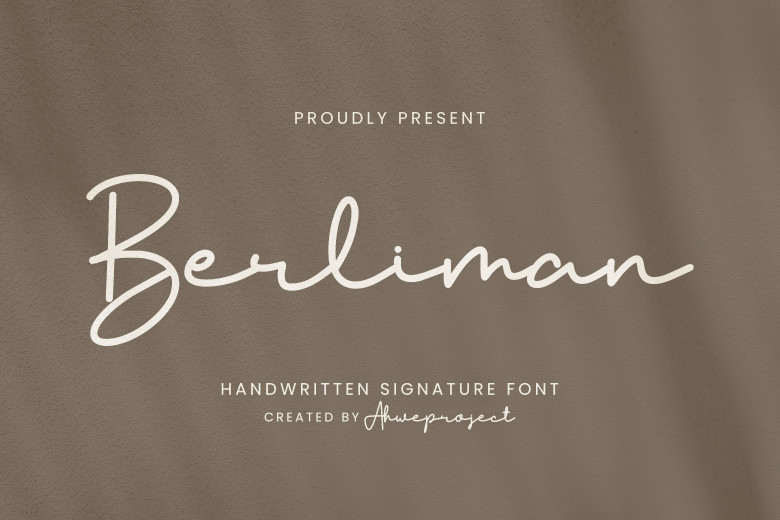
Berliman Font
Berliman can be best described as a signature script font created with an organic, handwritten style. This makes it suitable for branding purposes, logo design, wedding designs, advertisements and social media posts, packaging label designs for product packaging photographs as well as watermarks on stationery, invitations or any other projects requiring handwriting.
Berliman Signature Font